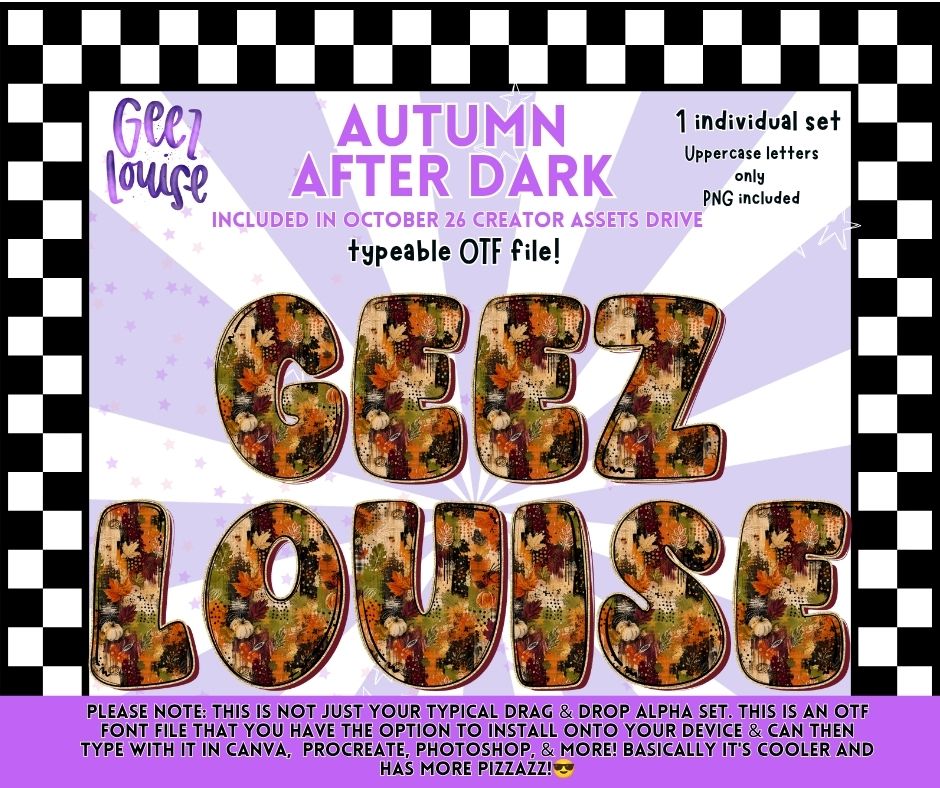
Autumn After Dark Fall Alpha | OTF Font + PNG Alphabet
A moody, grungy fall alpha packed with autumn leaves, pumpkins, and rich seasonal colors. Includes 1 typeable OTF font plus uppercase letters as individual PNG files. 🍂🖤